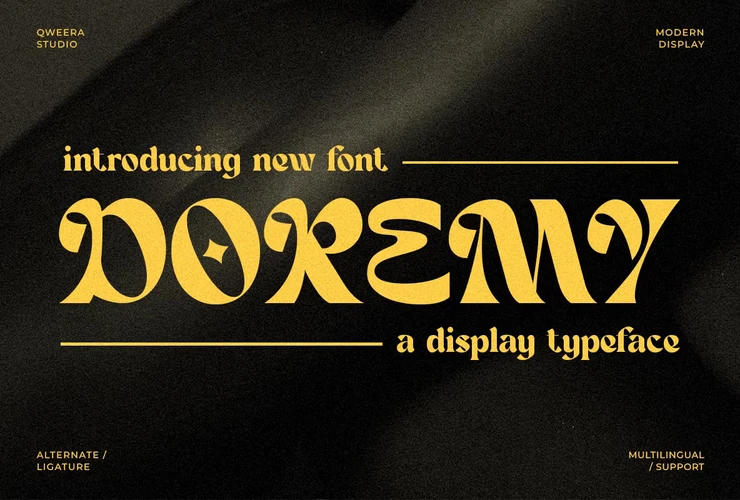
Doremy – Display Serif: Elevate Your Designs with Bold Elegance
Doremy – Display Serif is a striking font that merges modern sophistication with bold flair. Crafted to be versatile, Doremy offers regular, italic, and outline styles that make it perfect for diverse design projects. Whether you’re working on branding, editorial layouts, or poster designs, Doremy delivers an impactful and memorable visual experience.
Key Features of Doremy Display Serif:
Variety of Styles: Available in Regular, Italic, and Outline versions, Doremy gives you the flexibility to create layered and dynamic typography that stands out.
Opentype Features: This font comes with an array of distinctive alternates and ligatures, allowing you to customize your text with unique combinations that enhance your design’s personality.
Multilingual Support: Doremy supports a wide range of languages, making it suitable for global projects.
Why Choose Doremy?
Doremy is more than just a display serif; it’s a statement. The bold structure paired with elegant curves creates a perfect balance that suits high-end branding, editorial content, and striking posters. The included ligatures and alternates provide endless possibilities for creative typography, allowing designers to craft distinctive and polished visuals.
Whether you’re designing luxury logos, sophisticated magazine layouts, or eye-catching event posters, Doremy offers the right blend of elegance and assertiveness. Its versatility also makes it an excellent choice for digital and print media alike.